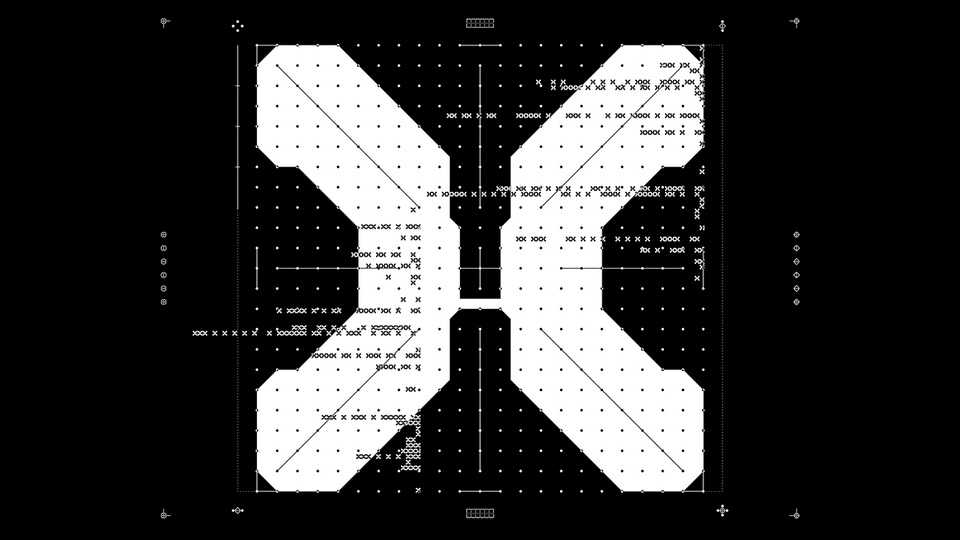
Bruks Display Font › Fontesk – Download Grátis
Download Bruks Display font, an industrial display typeface. With its strong and powerful look, Bruks Display font is perfect for posters, logos, headlines, branding, web and more.
Designer: Tom Robin Karlsson